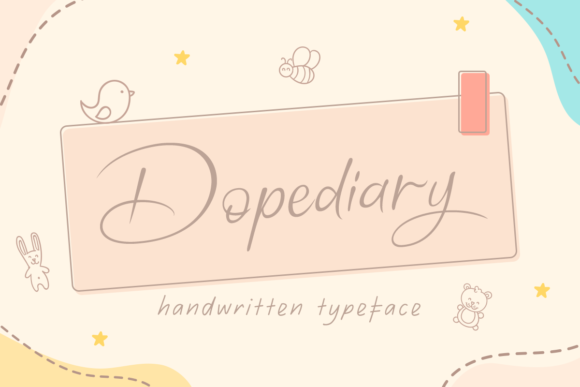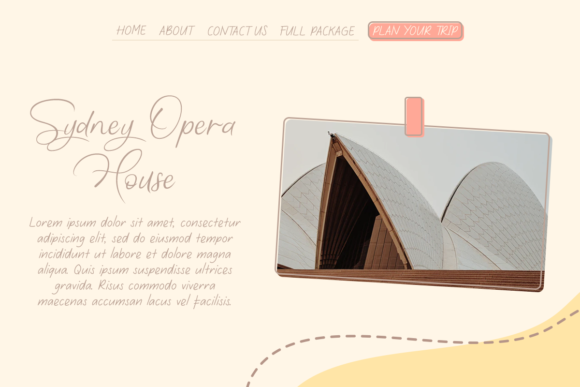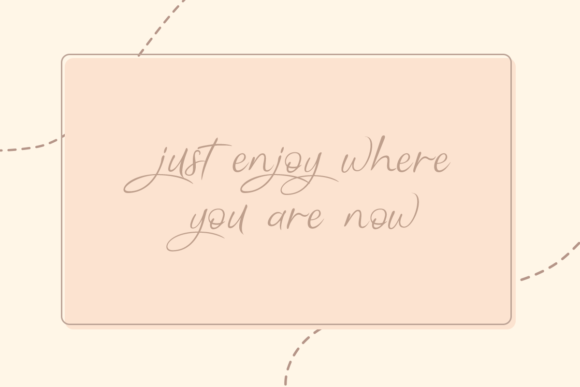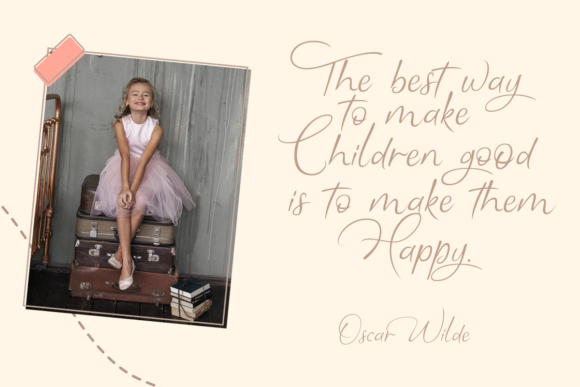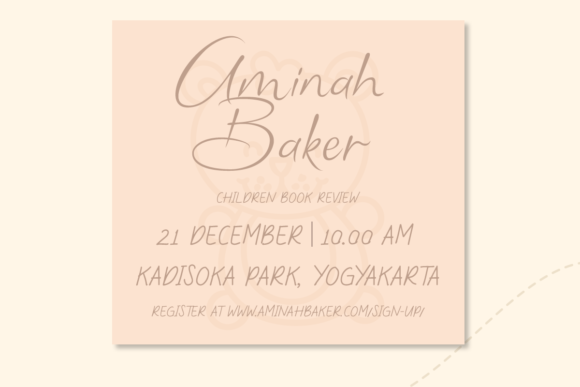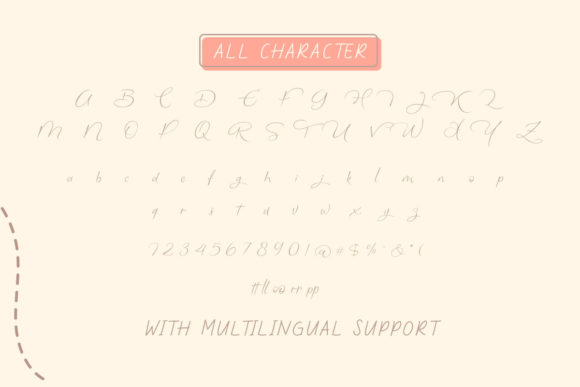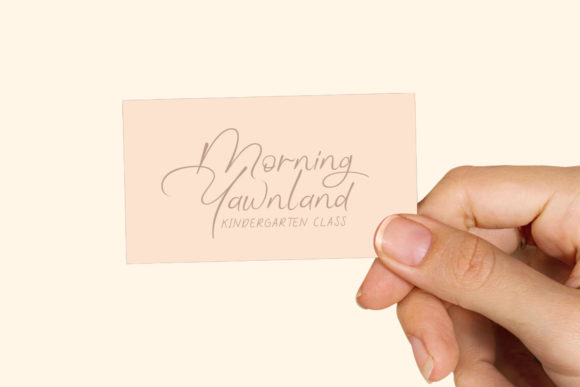
Dopediary Font
Dopediary is a sweet and delicate handwritten font. Dainty and joyful, this font will be ideal for writing wedding invitations, cards or any other design that may need a romantic, personalized touch!